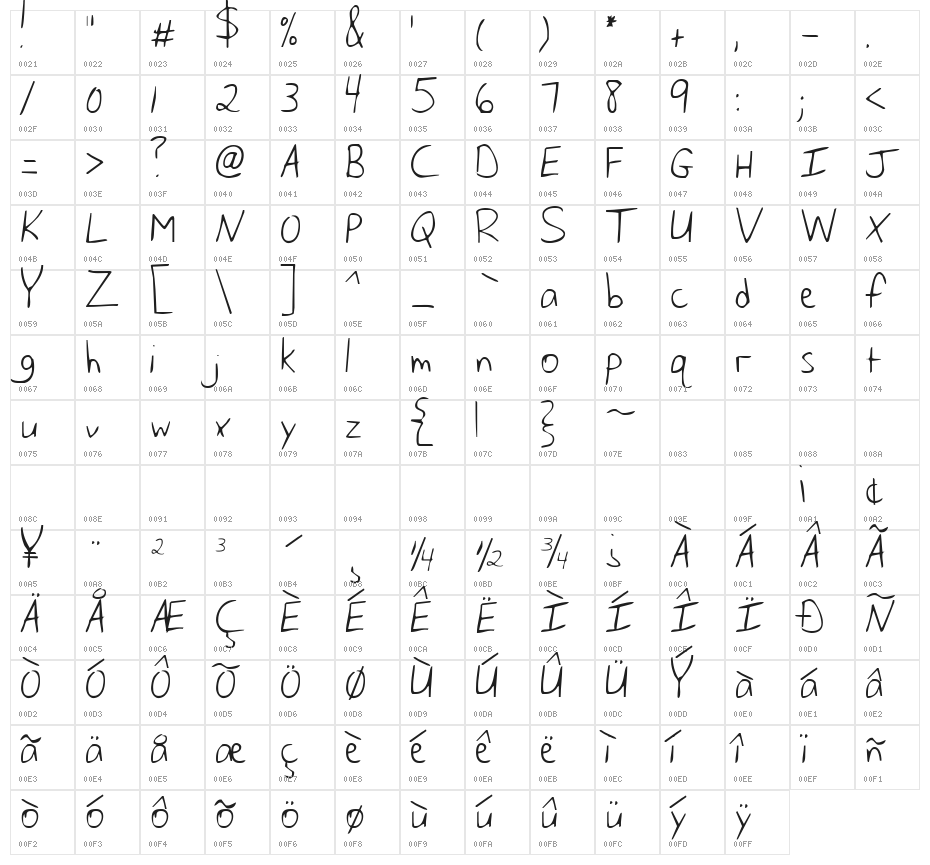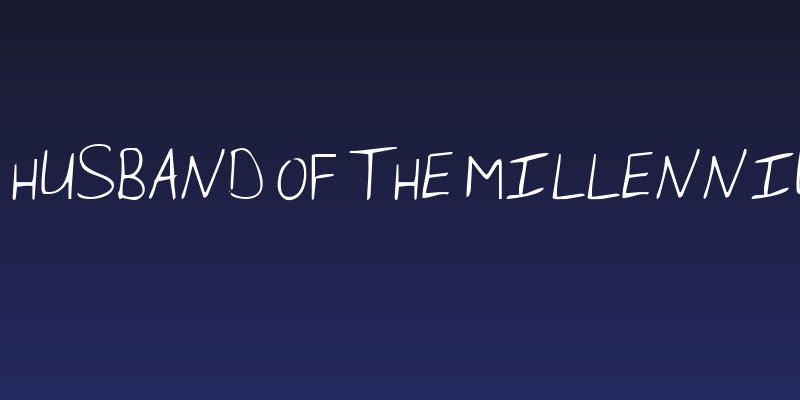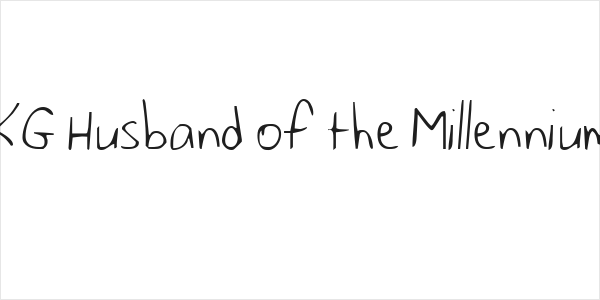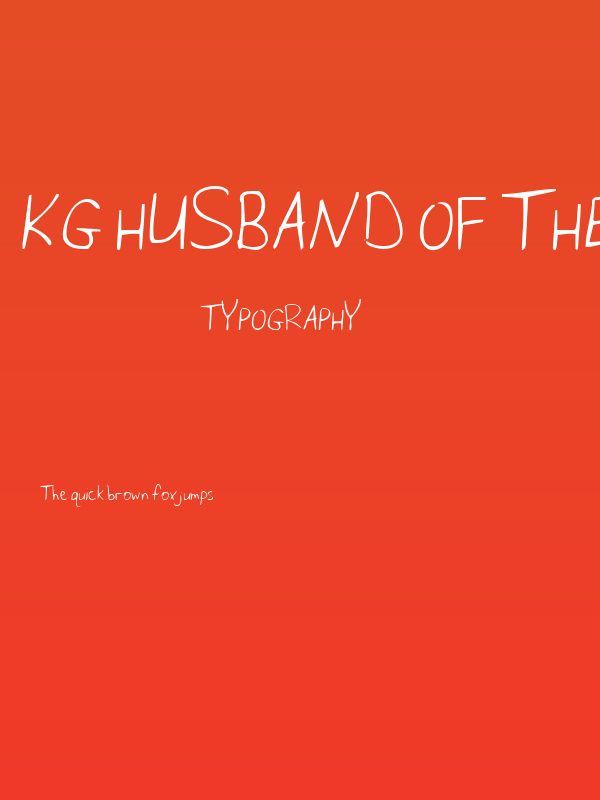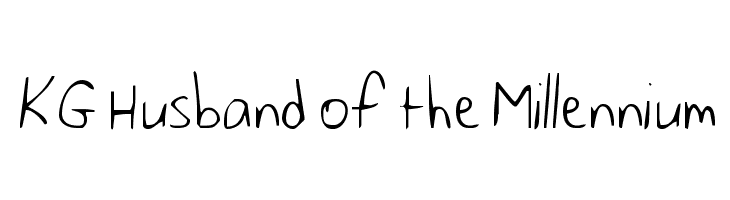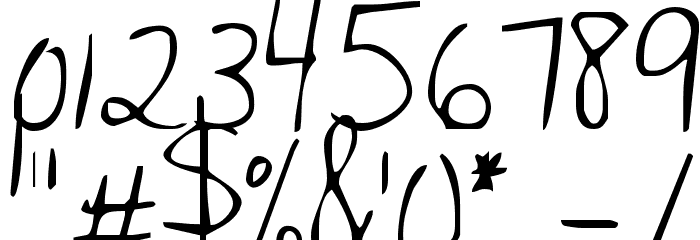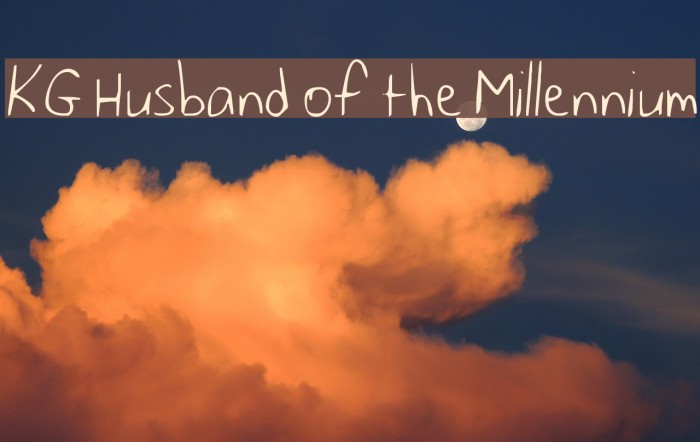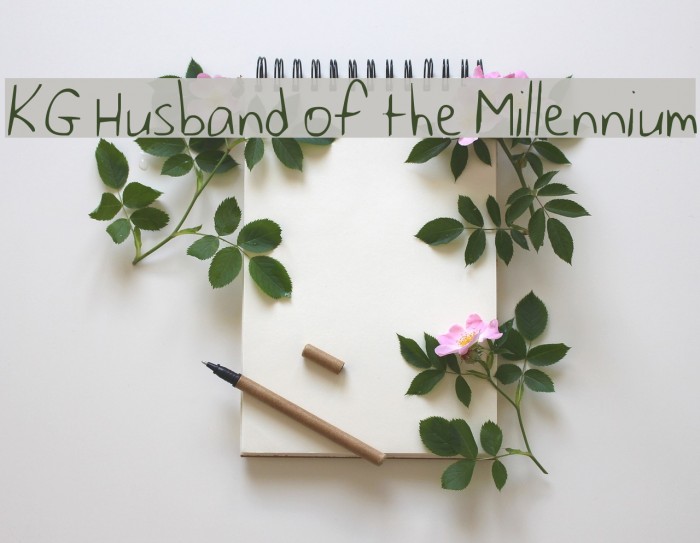
KG Husband of the Millennium Font
KG Husband of the Millennium Description
This font features a playful and casual handwritten style, characterized by its irregular and slightly tilted letterforms. The strokes vary in thickness, giving it a dynamic and lively appearance. The uppercase letters are bold and slightly elongated, while the lowercase letters maintain a consistent flow with rounded edges. Numbers and special characters follow the same whimsical style, making the font suitable for informal and creative projects. The overall appearance is approachable and friendly, ideal for conveying a personal touch.
| Overall Style | Casual, Playful |
| Use Case | Headlines, Informal text, Creative projects |
| Proposed Projects | Ideal for greeting cards, children's books, personal blogs, and informal branding. |